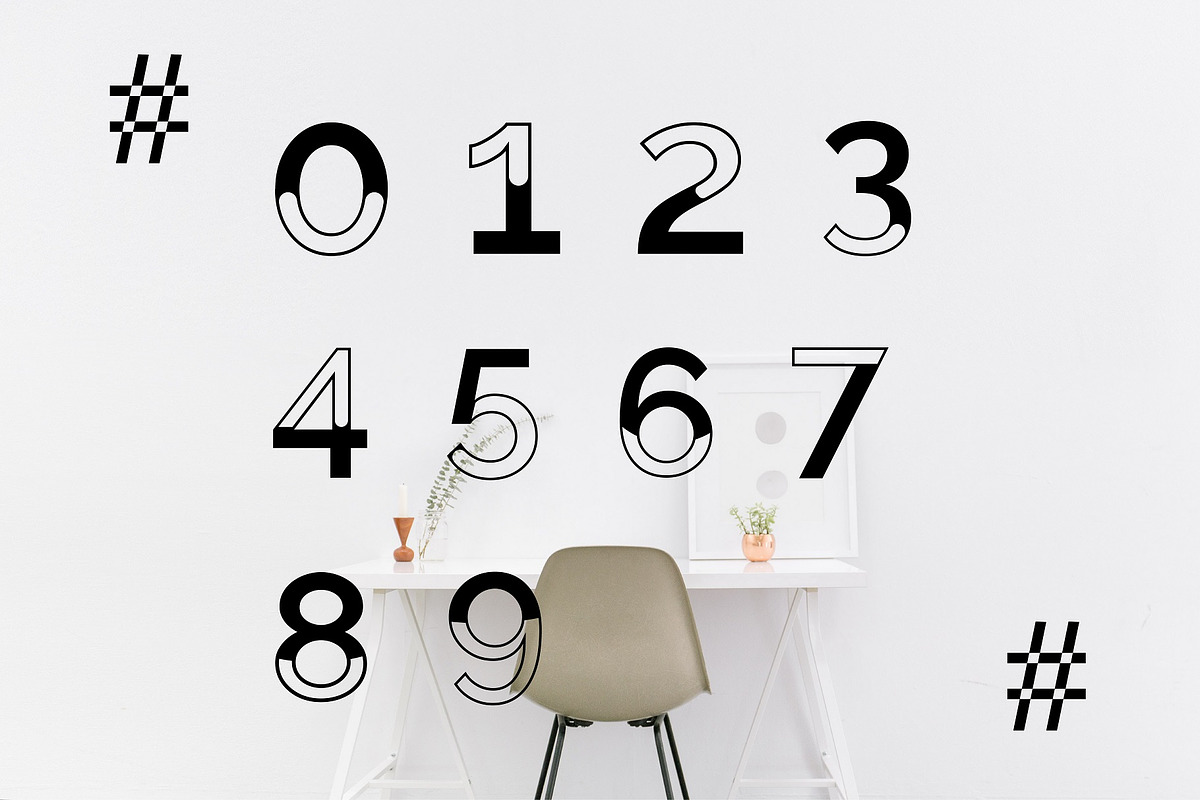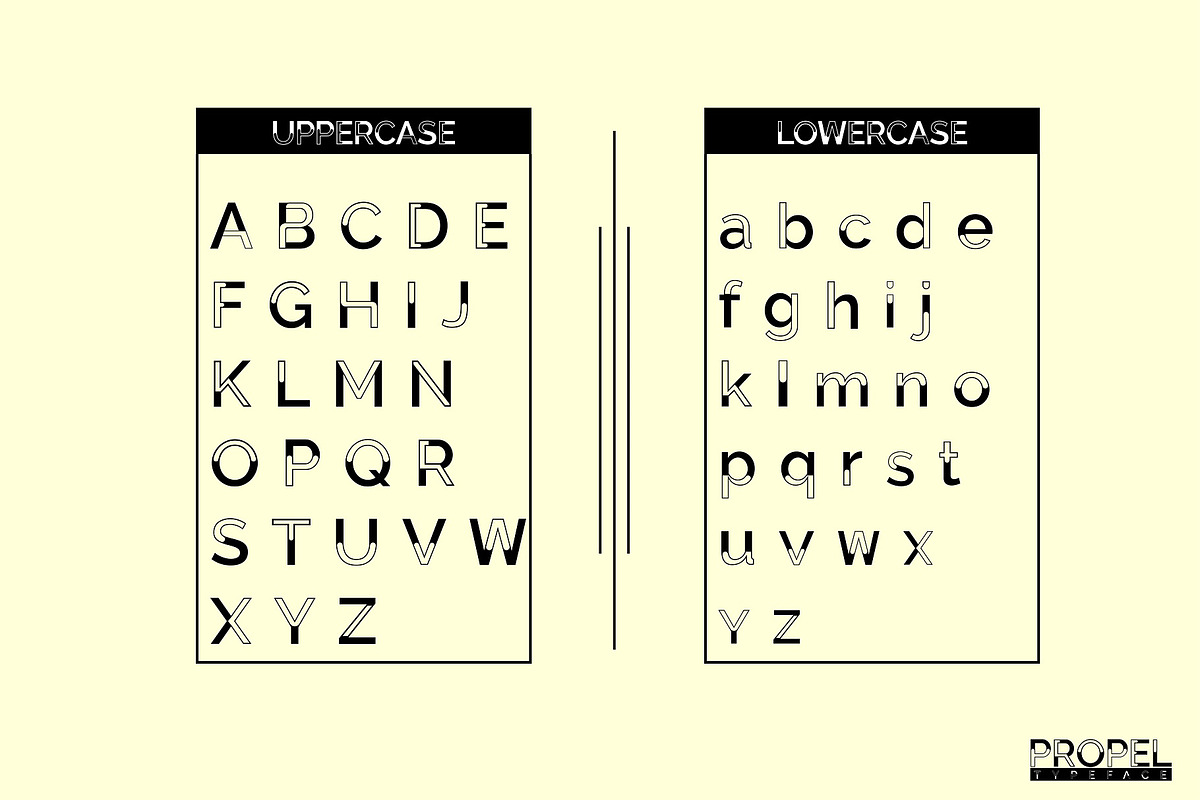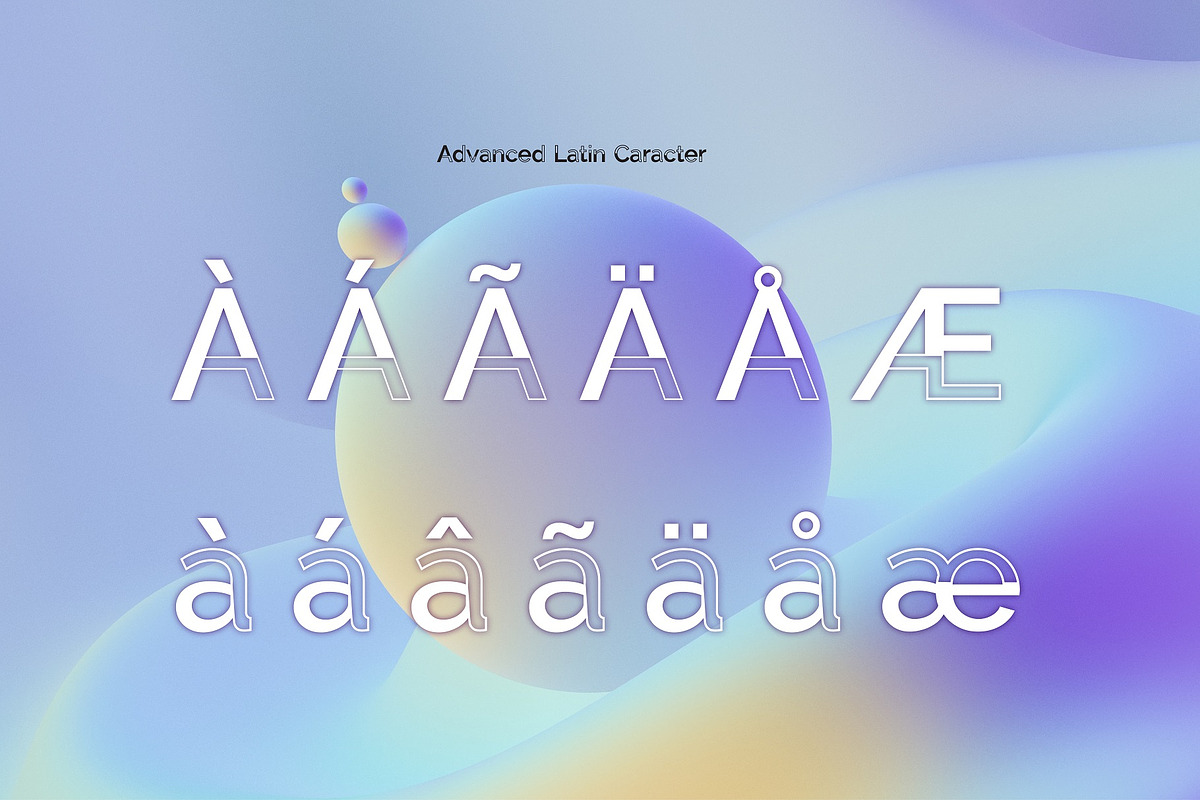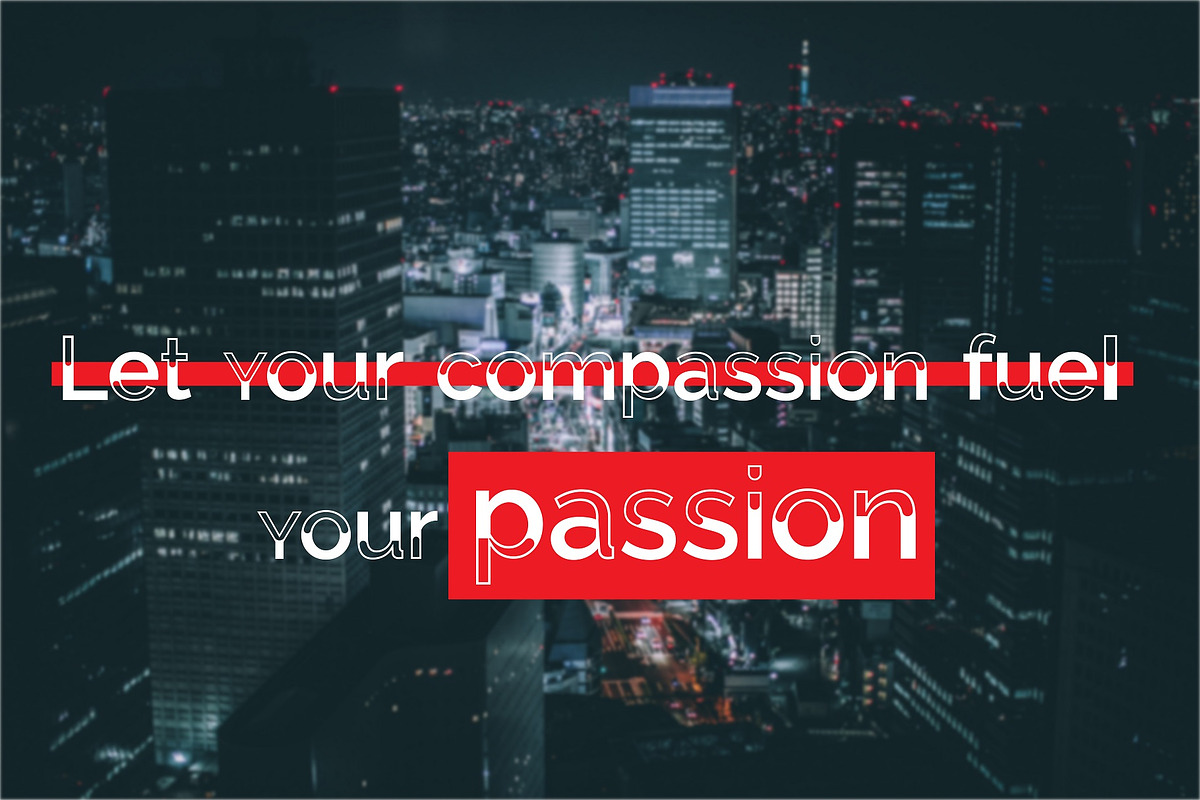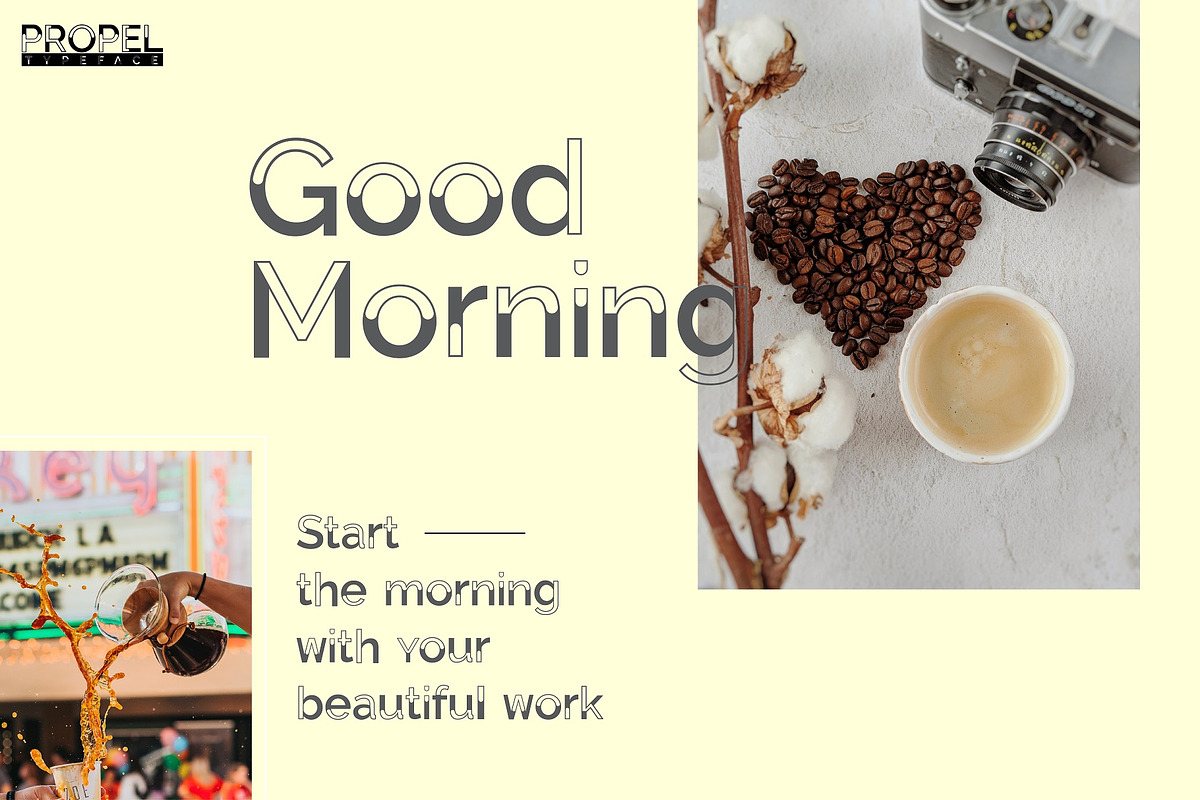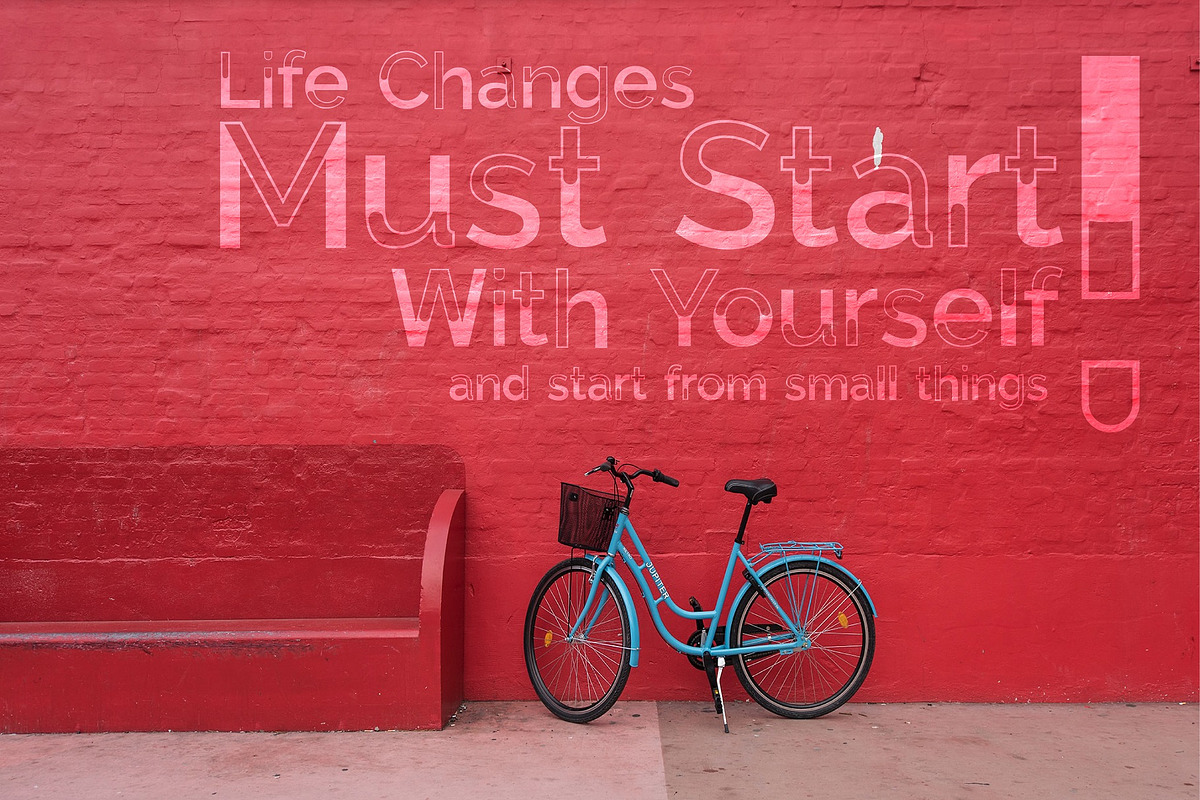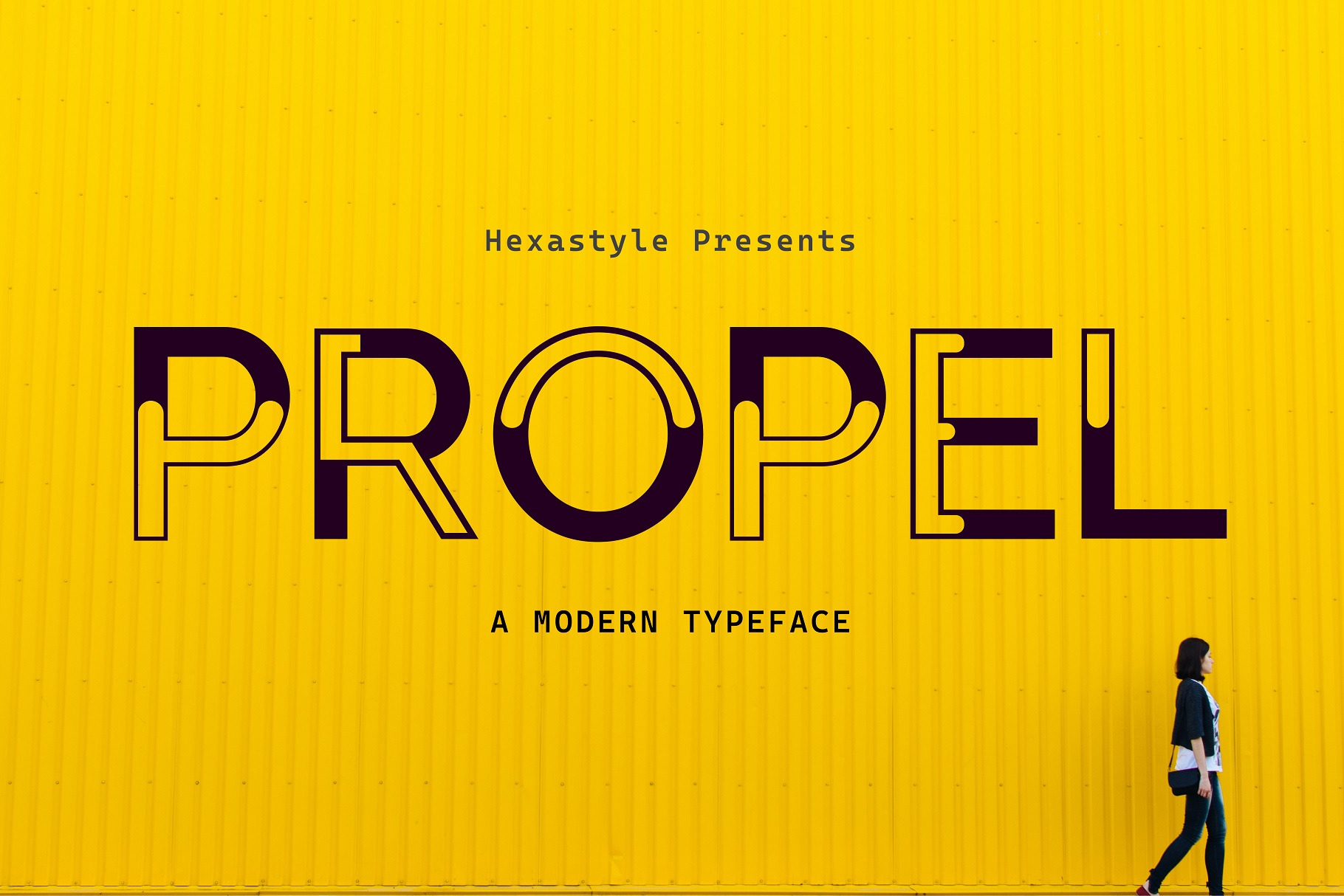
Propel - A Modern Typeface
Are you looking for a modern typeface that will make your designs pop?
Look no further than Propel! This stylish font comes with 183 glyphs and a full set of standard alphabet and punctuation marks. Plus, the glyph chart makes it easy to find the character you need. And with multilingual characters, Propel is perfect for international audiences.
Benefits:
- 183 glyphs for a stylish look
- Full set of standard alphabet and punctuation marks
- Glyph chart for easy character access
- Multilingual characters perfect for international audiences